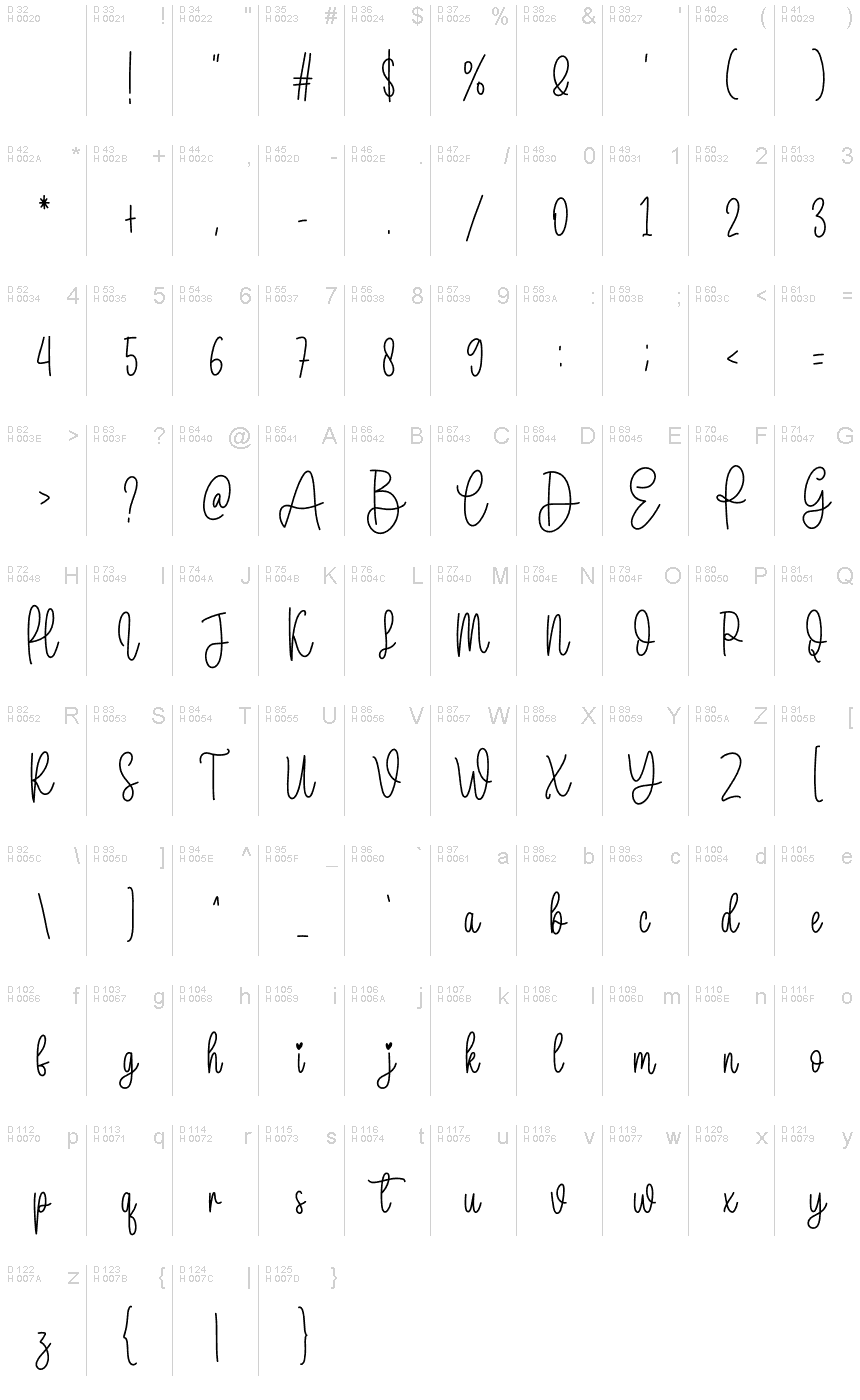
Handmade Sparkling
Handmade Sparkling, designed by Scratchones, exudes a delicate charm with its light weight and extra-condensed width that captures the essence of handwritten elegance. This font's artistry lies in its ability to pair the intimacy of handwritten notes with the shimmering whimsy its name suggests. Each stroke in Handmade Sparkling resonates with a personal touch, making it an ideal choice for designs that aim to evoke emotion and warmth.
Its aesthetic appeal is rooted in the natural flow and irregularity of handcrafted script, which makes it stand out in applications like wedding invitations, greeting cards, or branding for boutique businesses seeking a touch of personal sophistication. The uniqueness of Handmade Sparkling lends itself to creative projects where a sense of authenticity and artisanal flair is desired. Whether you're crafting an elegant logo or setting the mood for an exclusive event, this font's airy presence and enchanting style ensures that your message is delivered with both grace and character.